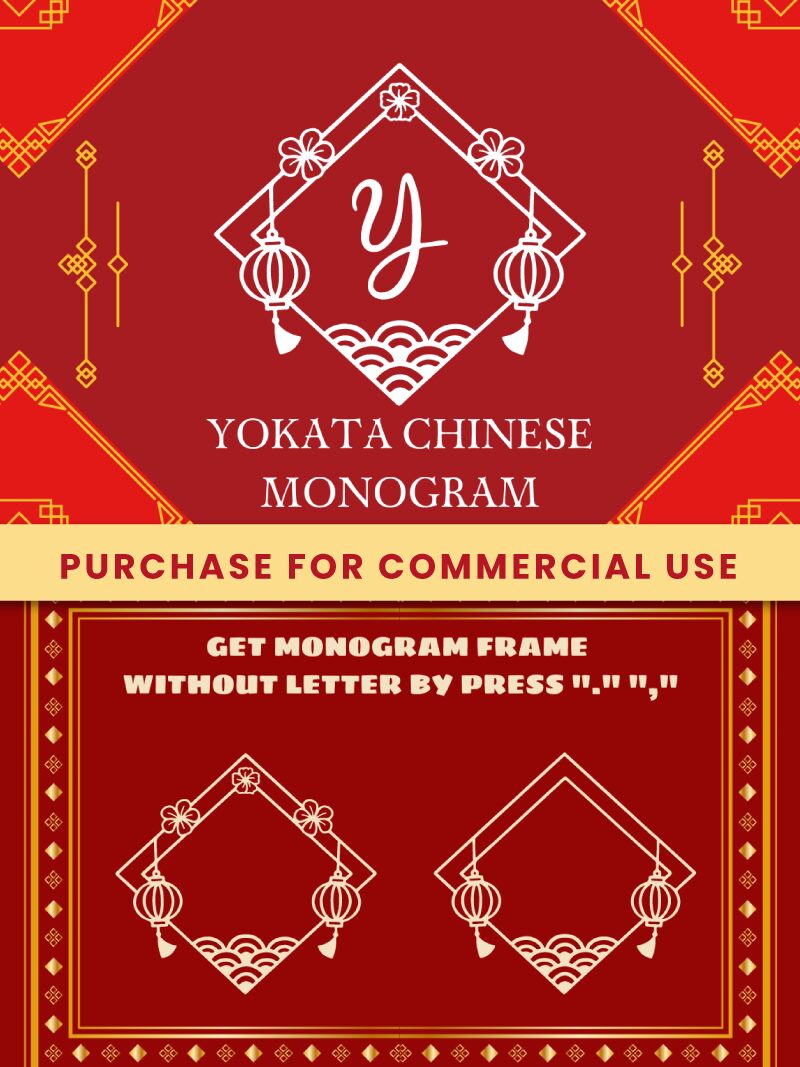
Yokata Chinese Monogram Regular
Yokata Chinese Monogram effortlessly merges the artistry of decorative typefaces with the finesse of semi-light weight design. Crafted by Attype Studio, this display font captivates with its intricate details and a style that pays homage to Eastern calligraphy. The fluidity and grace in each character promise to add a touch of elegance to any creative project.
Its aesthetic appeal lies in the delicate balance between traditional charm and contemporary design, making it an excellent choice for branding, artistic posters, and cultural events. Whether used for headlines or as an accent font, Yokata Chinese Monogram brings an air of sophistication and cultural richness that is rare to find in modern typography. Its versatility extends across various mediums, promising designers a unique tool for crafting visually stunning narratives.